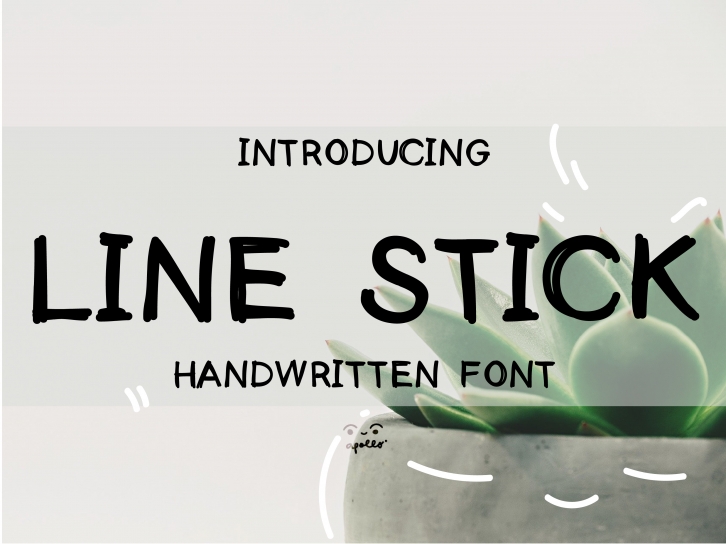
Line Stick is a cozy display font created with a double line. It will add a fresh and exciting feel to all your creative projects. Use it for printing, online posts, or anything else.